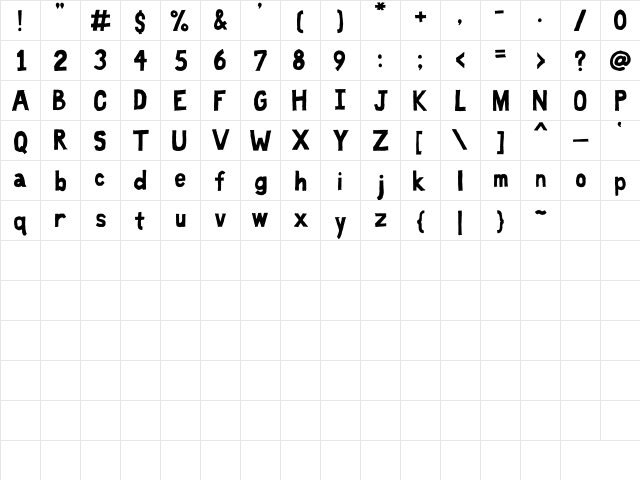
Fat Free Solid Regular
Design Context for Fat Free Solid Typeface
Fat Free Solid takes a measured approach to typography — its balanced proportions and neutral character make it a reliable workhorse for both digital and print work.